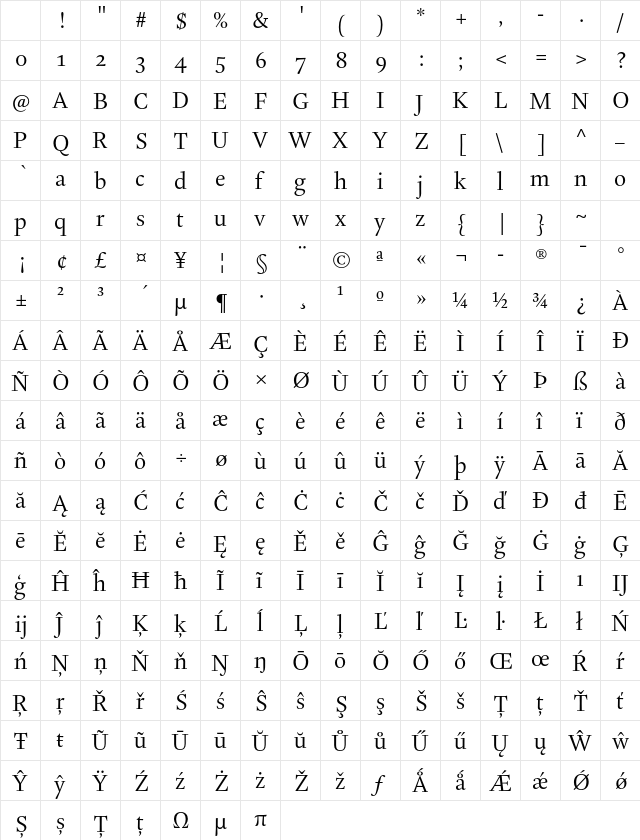
Kingfisher is built around its visual character rather than neutral utility - its distinctive forms are designed to make an impression at display sizes.
Font Pairing: Pair with a clean neutral sans-serif for body copy to let Kingfisher's character lead without overwhelming the composition.
Pro Tip: Use Kingfisher exclusively at display sizes - it was designed to be seen, not read at length. Let a neutral companion handle body copy.